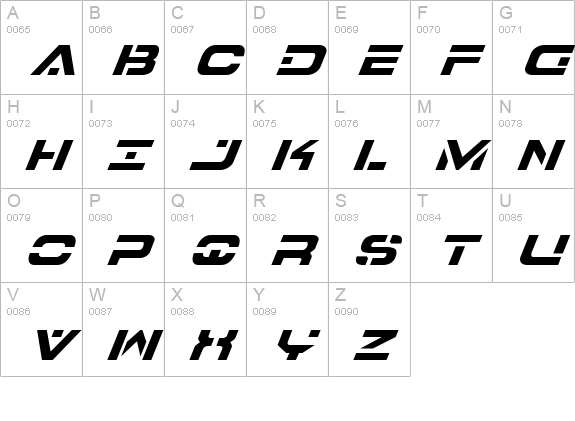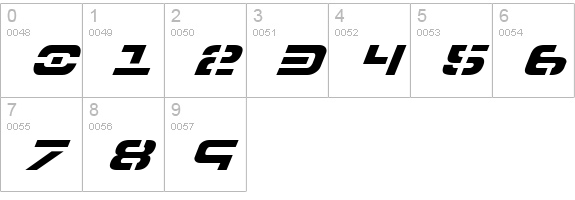
7th Service Italic is a distinctive, italic variant in the 7th typeface family \xE2\x80\x94 well suited to design and typography projects.
The 7th Service Italic font exudes elegance and sophistication with its sleek and modern design. Its graceful italic style adds a touch of flair to any project, making it perfect for use in branding, invitations, and other creative endeavors. This versatile font strikes the perfect balance between professionalism and creativity, making it suitable for a wide range of applications. Best of all, the 7th Service Italic font is available for free download at FontsMarket.com. This means that you can easily access this stylish font without any cost, allowing you to elevate your designs without breaking the bank. Don't miss out on this fantastic opportunity to enhance your projects with the 7th Service Italic font, available for free at FontsMarket.com.